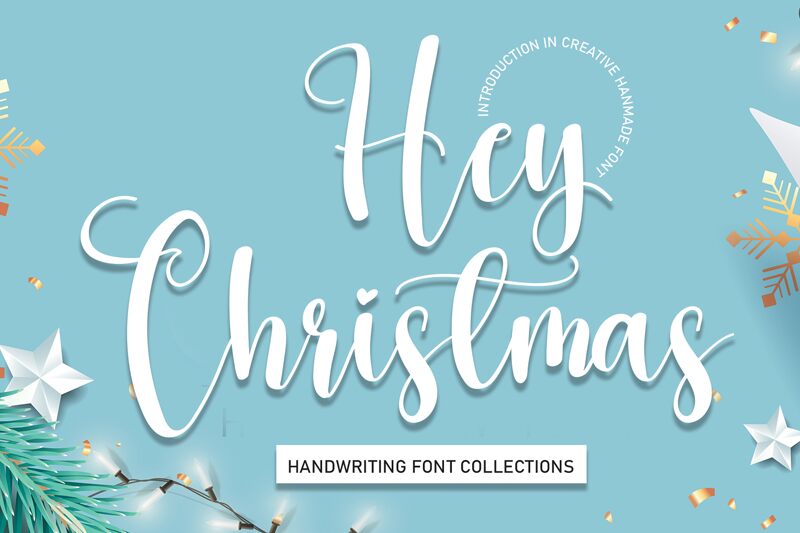
Hey Christmas
Hey Christmas by scratchones is a stunning calligraphy font that adds a touch of elegance and festivity to any project. With its semi-light weight and semi-condensed width, this font is perfect for holiday-themed designs such as greeting cards, invitations, posters, and social media graphics. The cursive strokes of Hey Christmas give it a unique personality that is ideal for adding warmth and charm to your projects. Whether you're designing for personal or commercial use, Hey Christmas will bring joy and cheer to your audience. Get into the holiday spirit with this beautiful calligraphy font today!
the latest style letters are perfect for wall displays, wedding invitations, social media post logos, advertisements, product packaging, product designs, labels, photography, watermarks, invitations, stationery, and any project that requires taste handwriting.